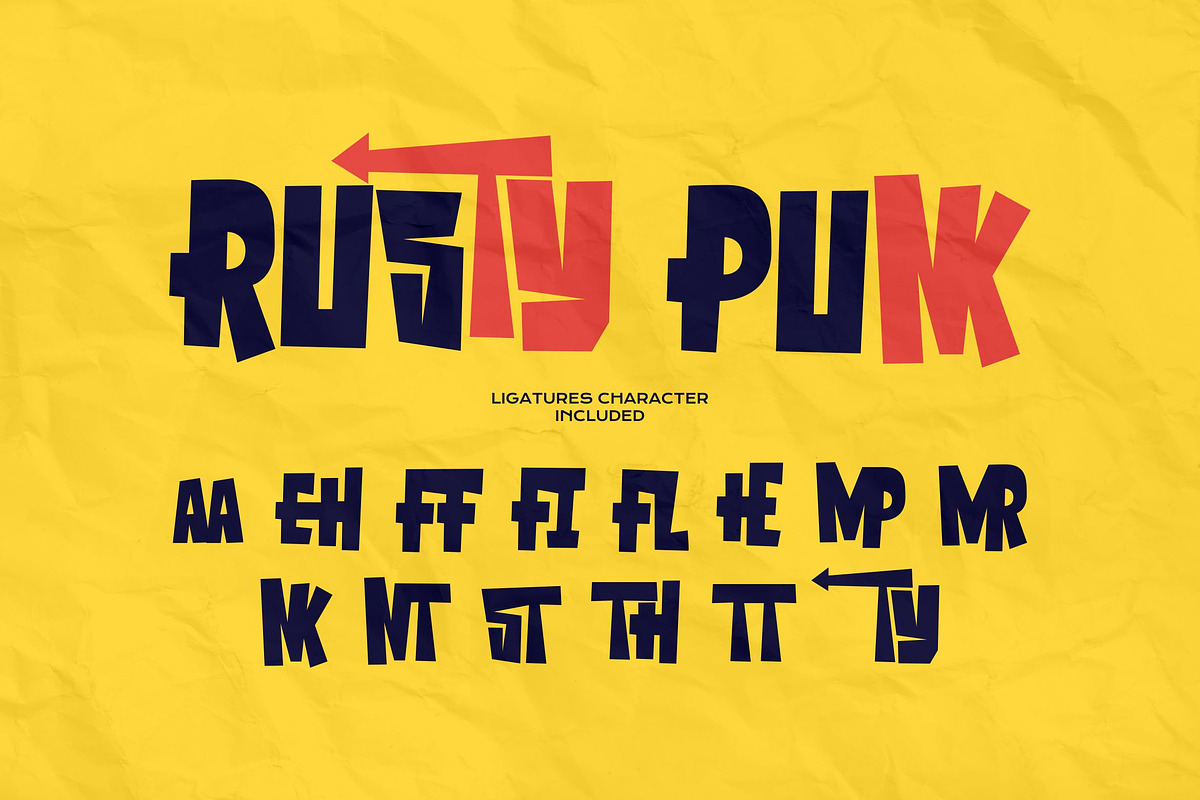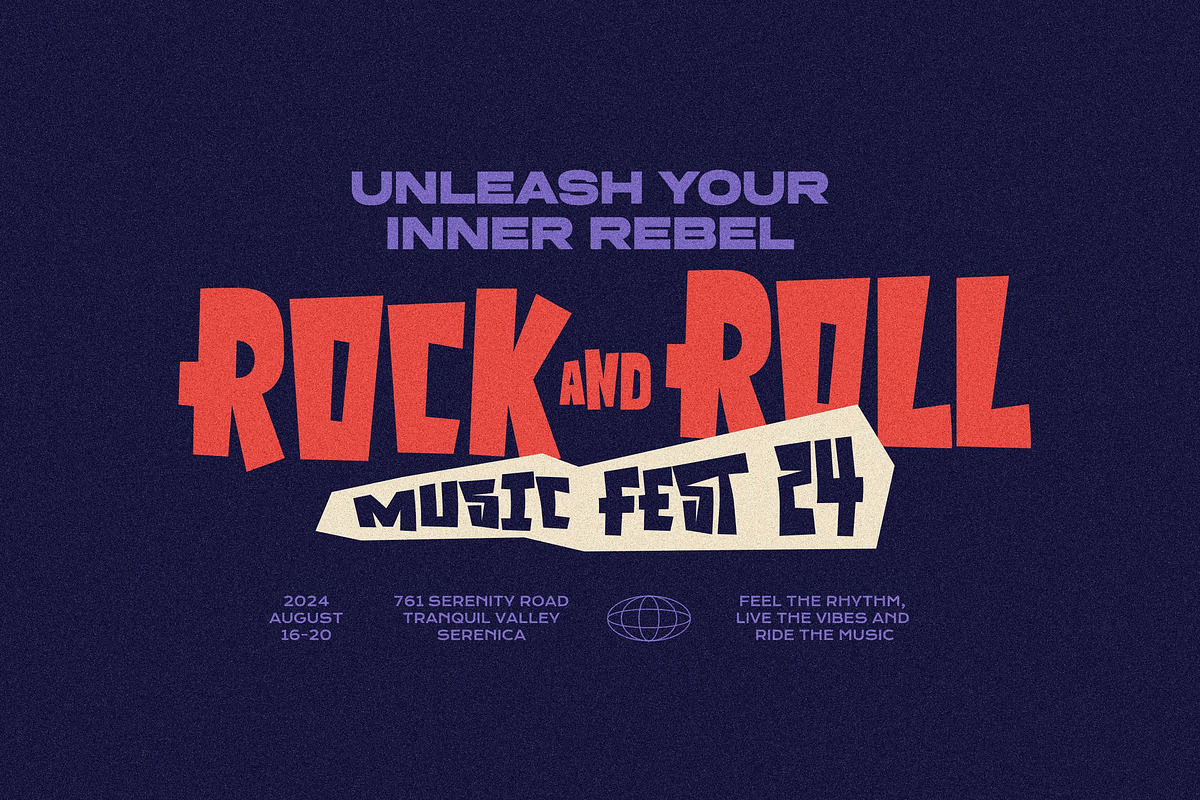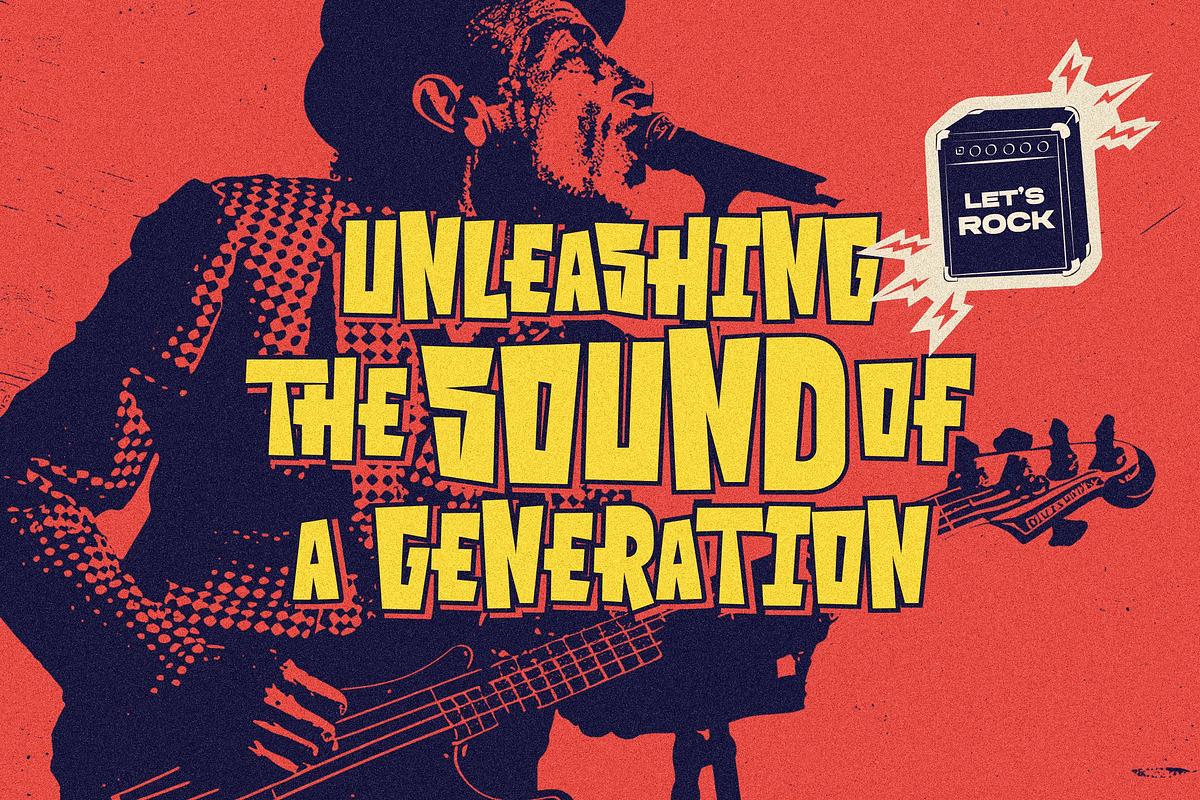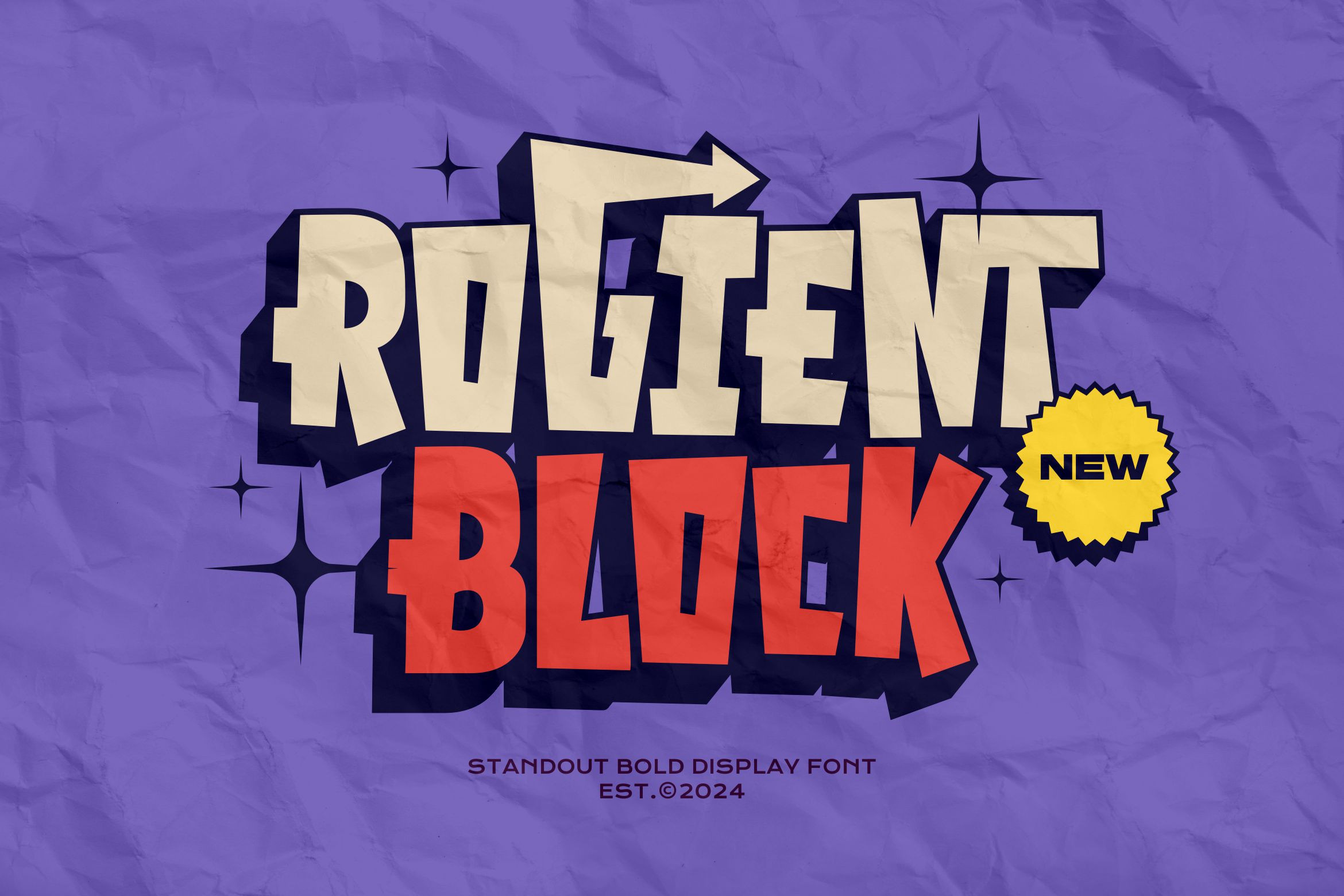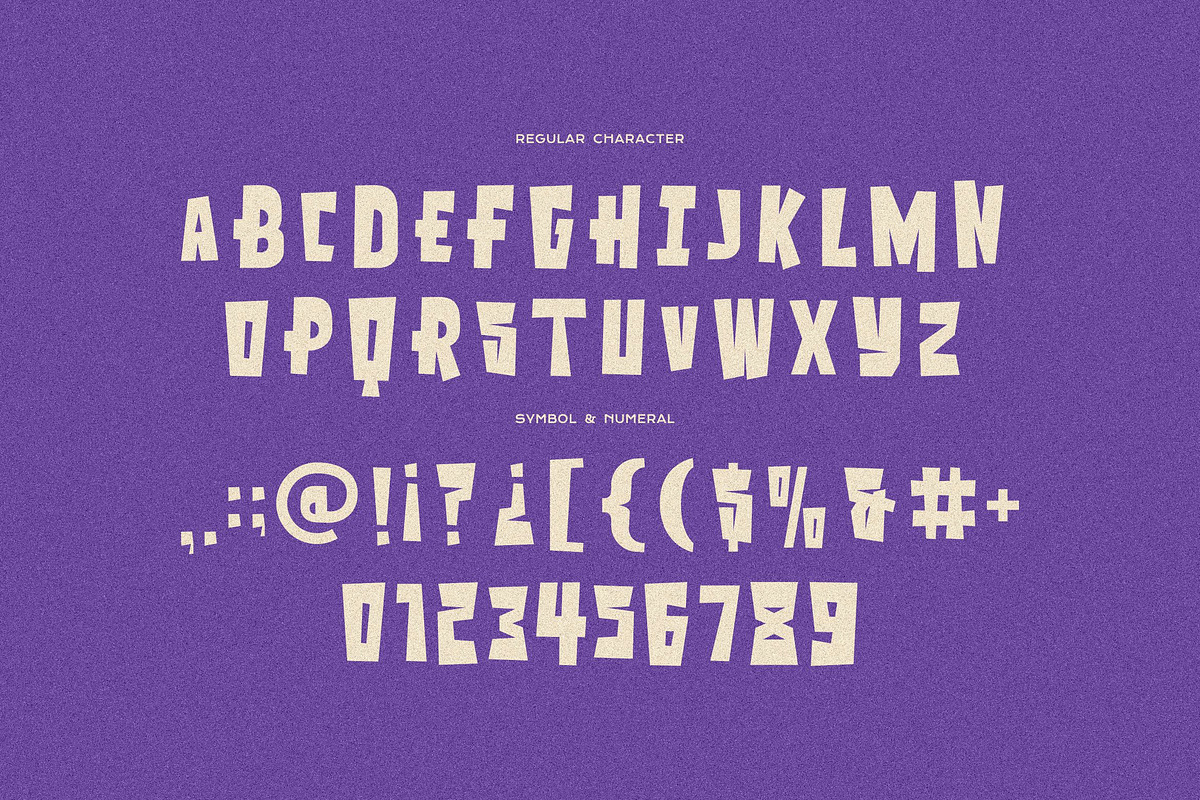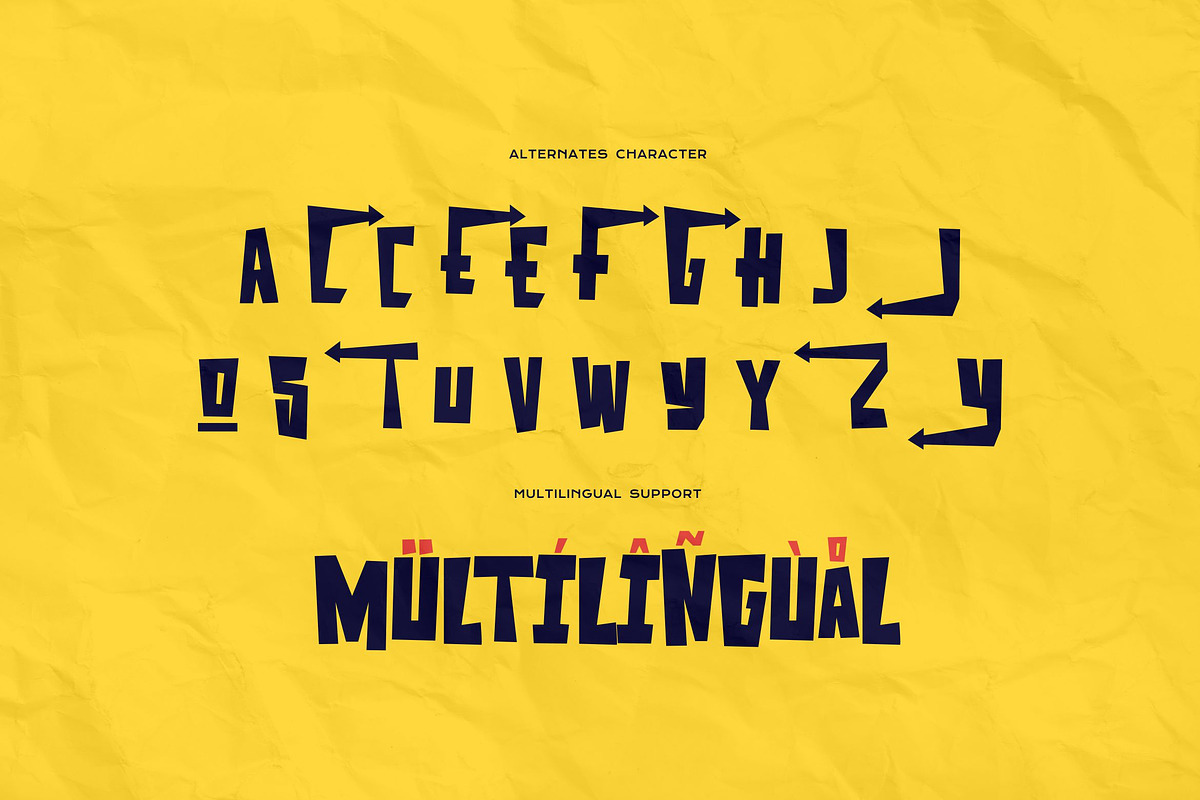
Rogient Block - Street Display Font
Rogient Block is a bold, blocky display typeface inspired by comics and punk with a fun aesthetic. Its angular, irregular letter shapes and unique arrow styled alternates create a fun, energetic impression.
Its playful, slightly distorted style enhances the edgy and vibrant feel, ideal for capturing attention in dynamic visual compositions. This typeface is perfect for posters, merchandise, or any design that seeks a bold, quirky, and engaging look.